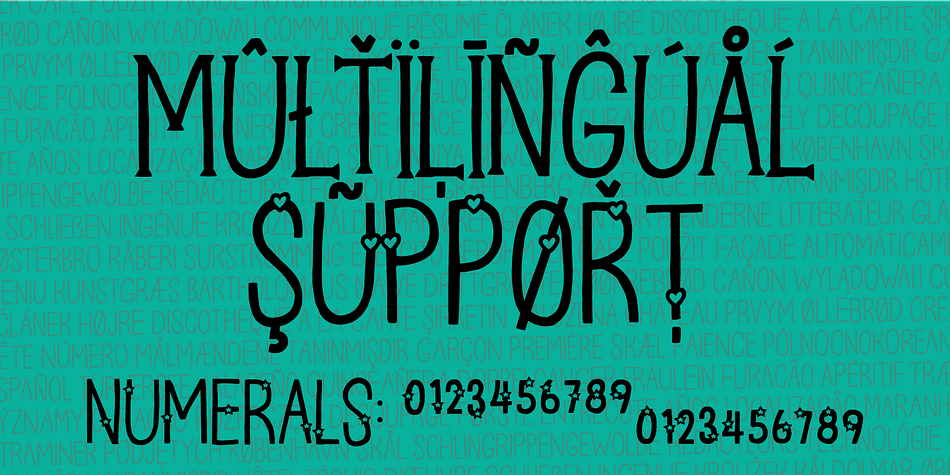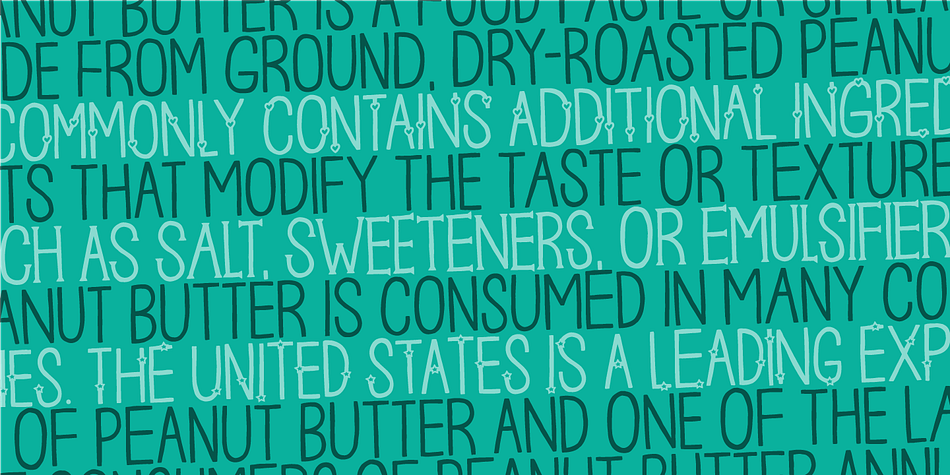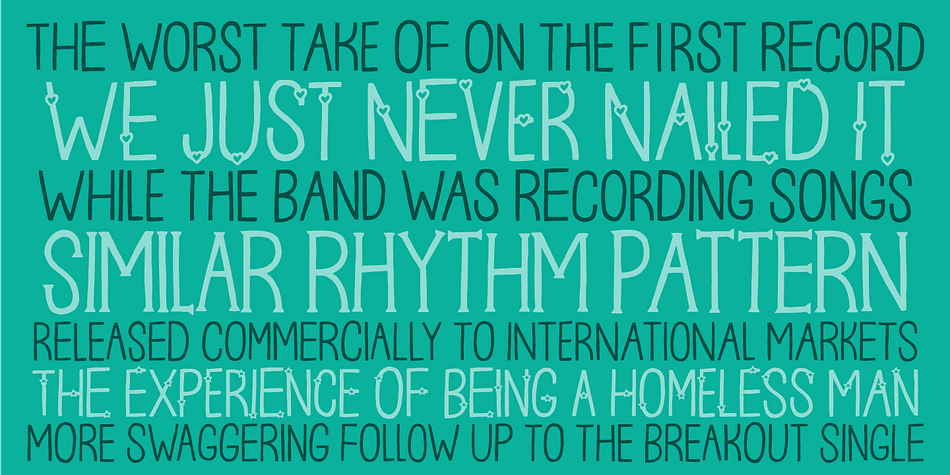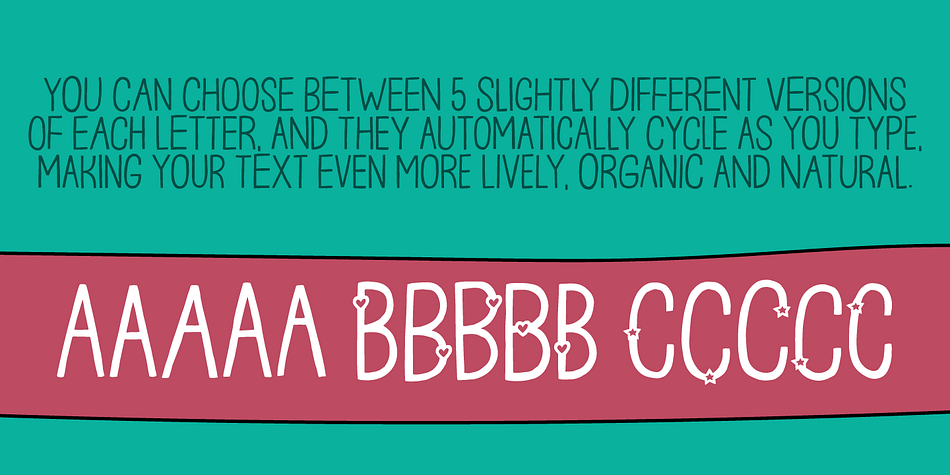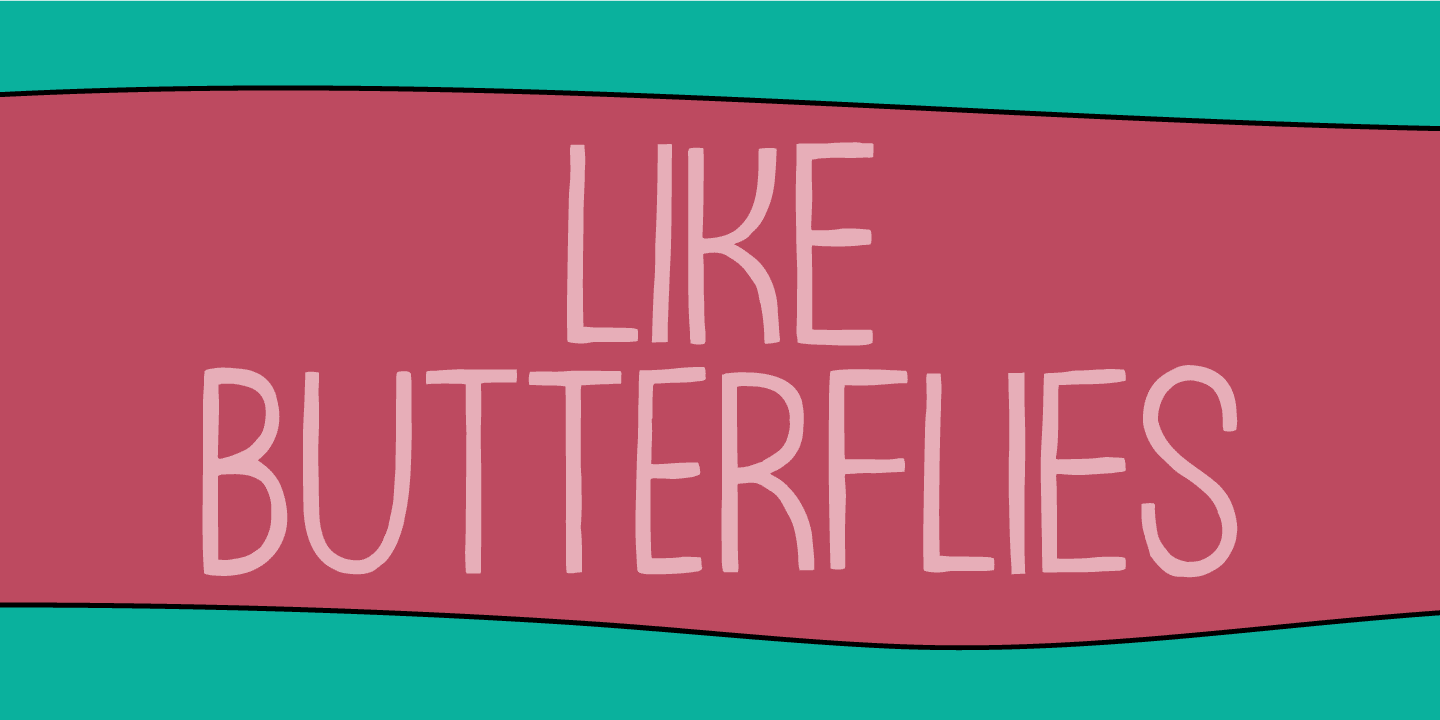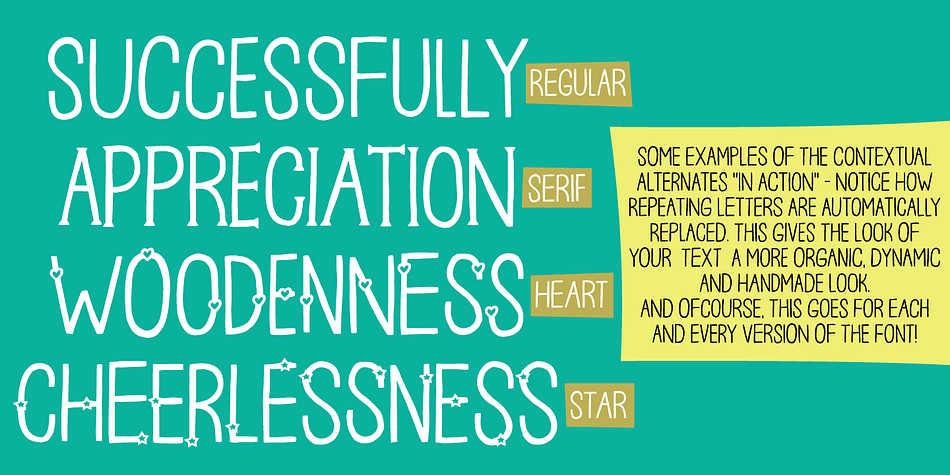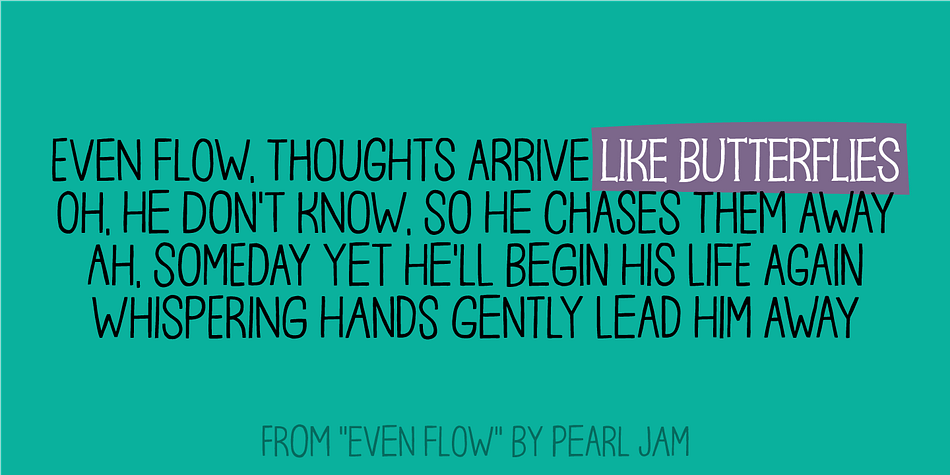
Like Butterflies
Designed by Jakob Fischer, Like Butterflies is a hand display font family. This typeface has four styles and was published by Bogstav.
Now here’s a font that is named Like Butterflies, but has got nothing to do with butterflies!
What? Why? Well, I recently heard the song “Even flow” by Pearl Jam and took a trip down memory lane - back to my early twenties. I remember how the lyrics affected me, and had an impact on how my life changed the years to follow.
Maybe the style of the font does not reflect the inner meaning of the song, but it does reflect a look back in time for me - and the change that took place.
Nevertheless, I hope you enjoy the somewhat simple, handmade style of Like Butterflies and the 4 versions that works very well together! Please notice that each letter has got 5 slightly different versions to choose from!